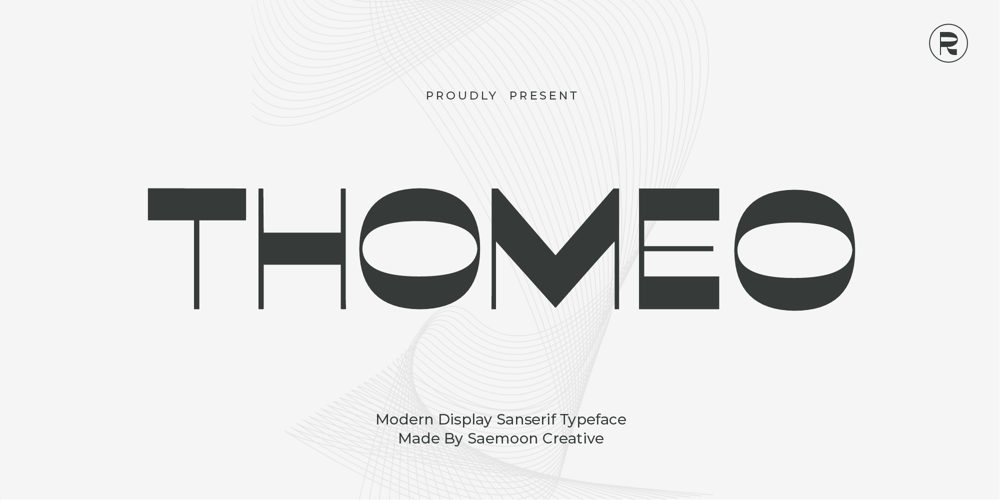
Thomeo Font Family was designed by Sapto Susilo and published by Saemoon Creative. Thomeo contains 1 styles and family package options. Thomeo is a bold modern display font with sans serif style. It’s modern and classic font with a unique and different look. It is perfect for editorial projects, logo designs, web font, clothing branding, product packaging, magazine headers, or simply as a stylish text overlay to any background image.We hope you enjoy the font, please feel free to comment if you have any thoughts or feedback.